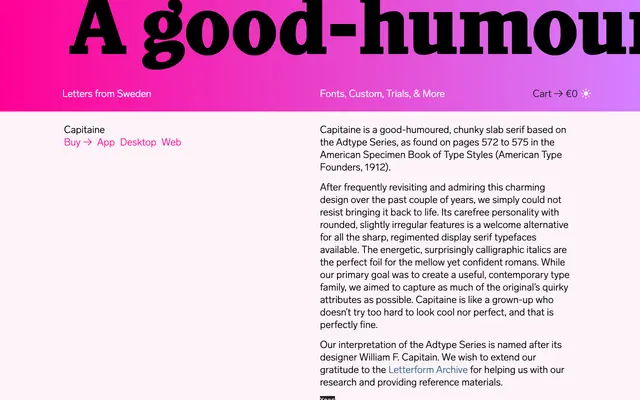
Capitaine
Letters from Sweden · Göran Söderström · 2018
Capitaine specimen from Letters from Sweden
A revival of William F. Capitain's Adtype Series from 1912, redrawn by Göran Söderström as a chunky, good-humoured display slab with calligraphic italics.
Based on the Adtype Series as published in the American Specimen Book of Type Styles (American Type Founders, 1912), Capitaine preserves the original's rounded, slightly irregular forms while functioning as a contemporary type family. The roman cuts carry a mellow confidence, while the italics are notably energetic and calligraphic, offering a lively contrast to the upright styles. Three weights from Regular to Black give it range across display, editorial and branding contexts where warmth matters more than precision.
A chunky, rounded slab serif with calligraphic italics, reviving the early 20th-century Adtype Series. The rounded, slightly irregular forms and expressive italics place it firmly in the display slab tradition.